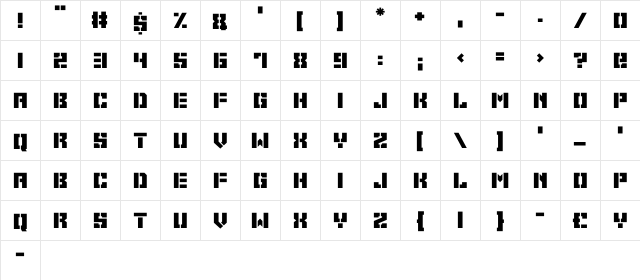
Space Cadets Regular
Design Context for Space Cadets Typeface
Space Cadets is a composed and adaptable typeface that performs quietly and consistently across a wide range of design contexts.